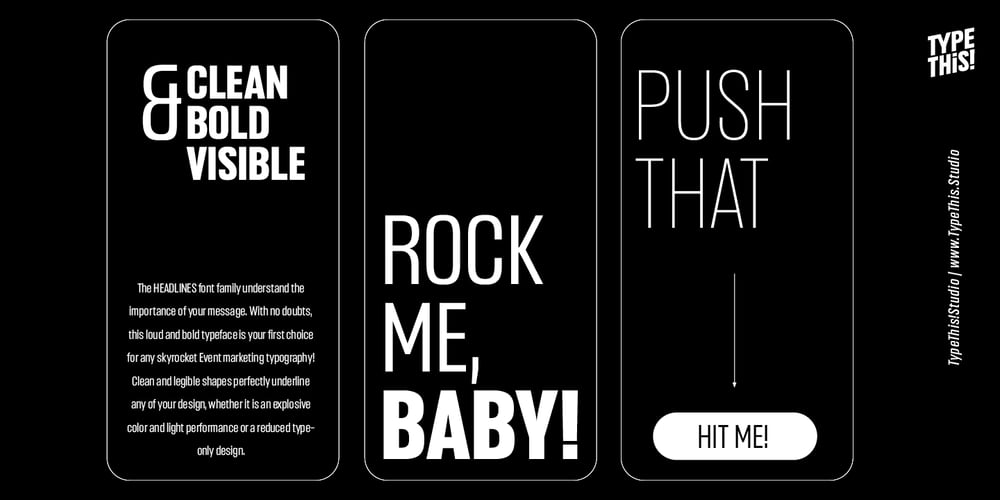
Headlines Core Edition Font Family was designed by Anita Jürgeleit and published by TypeThis!Studio. Headlines Core Edition contains 8 styles and family package options. Headlines font family was designed for optimised headline settings.The condensed letters are designed for clear and straight headlines and also allow longer words and headlines to find the space they need for a well-composed headline.Typeface Features 265 Characters 8 Styles, including Italics Western European Language Support Numbers Symbols Punctuation www.typethis.studioThank you for checking out Headlines Font Family. If you have any questions, please send an email to hello@typethis.studio